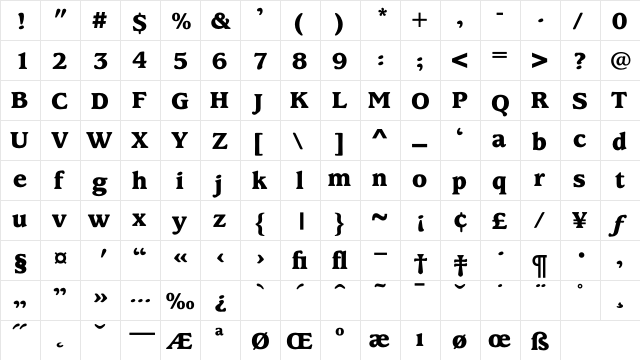
KingsrowExtraBold Regular
Design Context for KingsrowExtraBold Typeface
KingsrowExtraBold takes a measured approach to typography — its balanced proportions and neutral character make it a reliable workhorse for both digital and print work. The heavy weight commands attention and anchors typographic hierarchies.
Pro Tip: Use KingsrowExtraBold in both headline and body roles to test its range before committing to a single application.